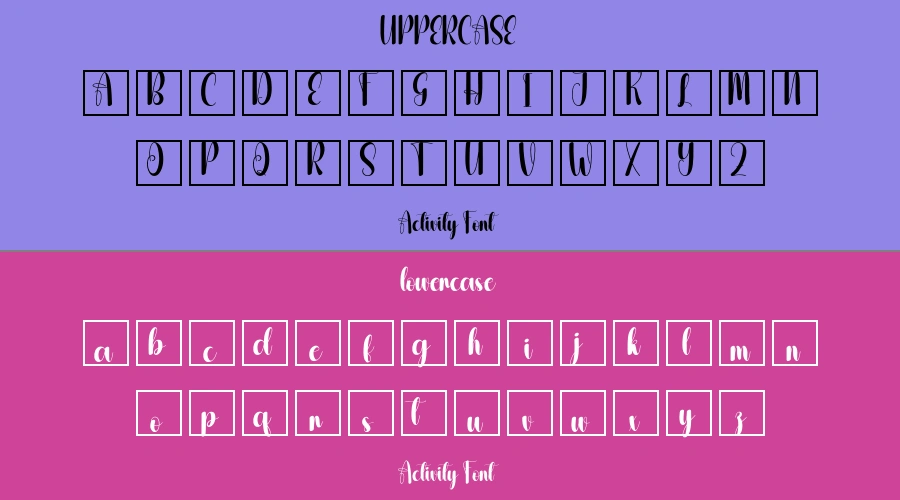
About Activity Font
Activity Font represents a sophisticated approach to type design, balancing geometric precision with adaptability. Perfect for packaging hero, this font family showcases impressive functionality and user trust throughout its character set. Designers appreciate its versatility and reliability.
Designers will appreciate nuanced touches including dramatic weight and connecting forms, adding sophistication to any project. These features become apparent in campaign headers, where digital conversion matters most. The careful treatment of descender depth and brand personality ensures optimal performance.